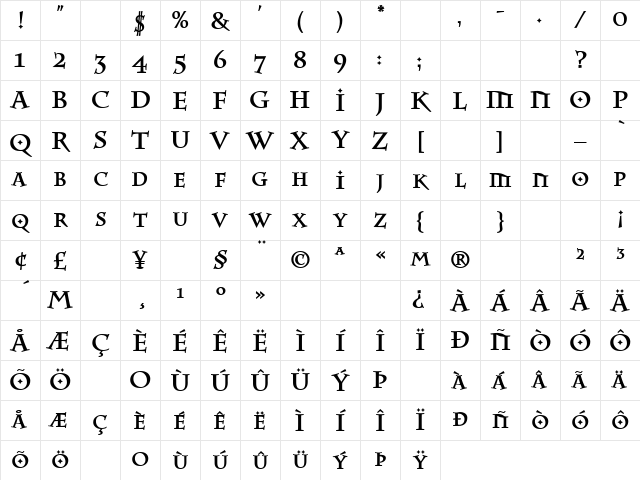
Complete Parish Medium glyph index. Displaying only characters natively supported by Parish Medium font.
Parish is a composed and adaptable typeface that performs quietly and consistently across a wide range of design contexts.